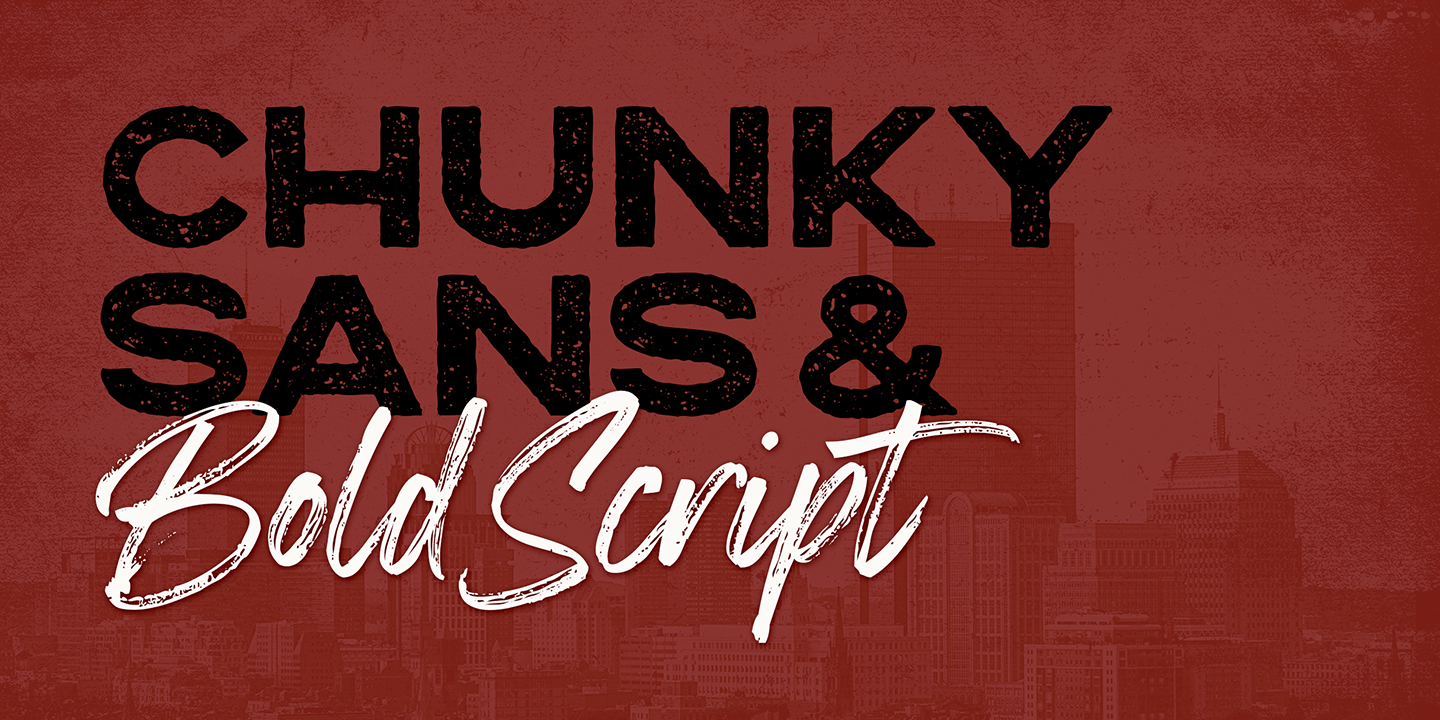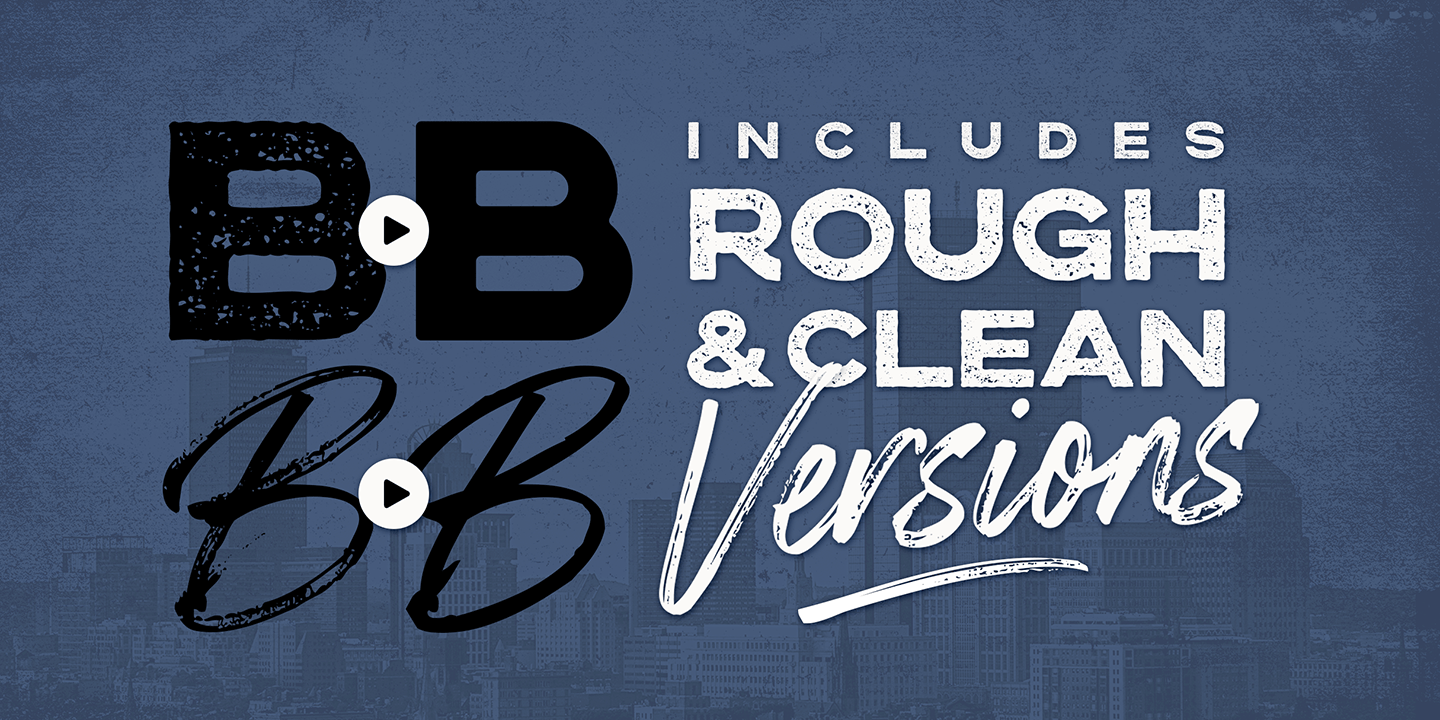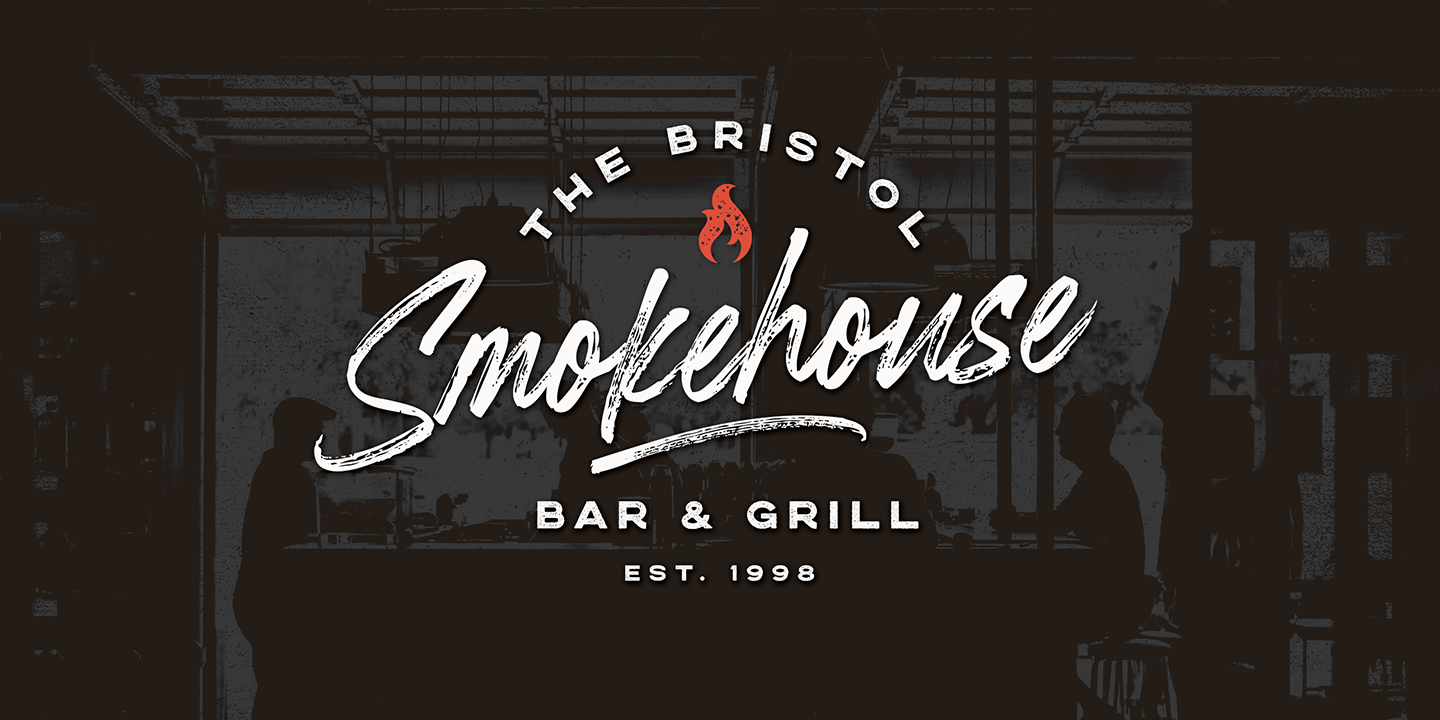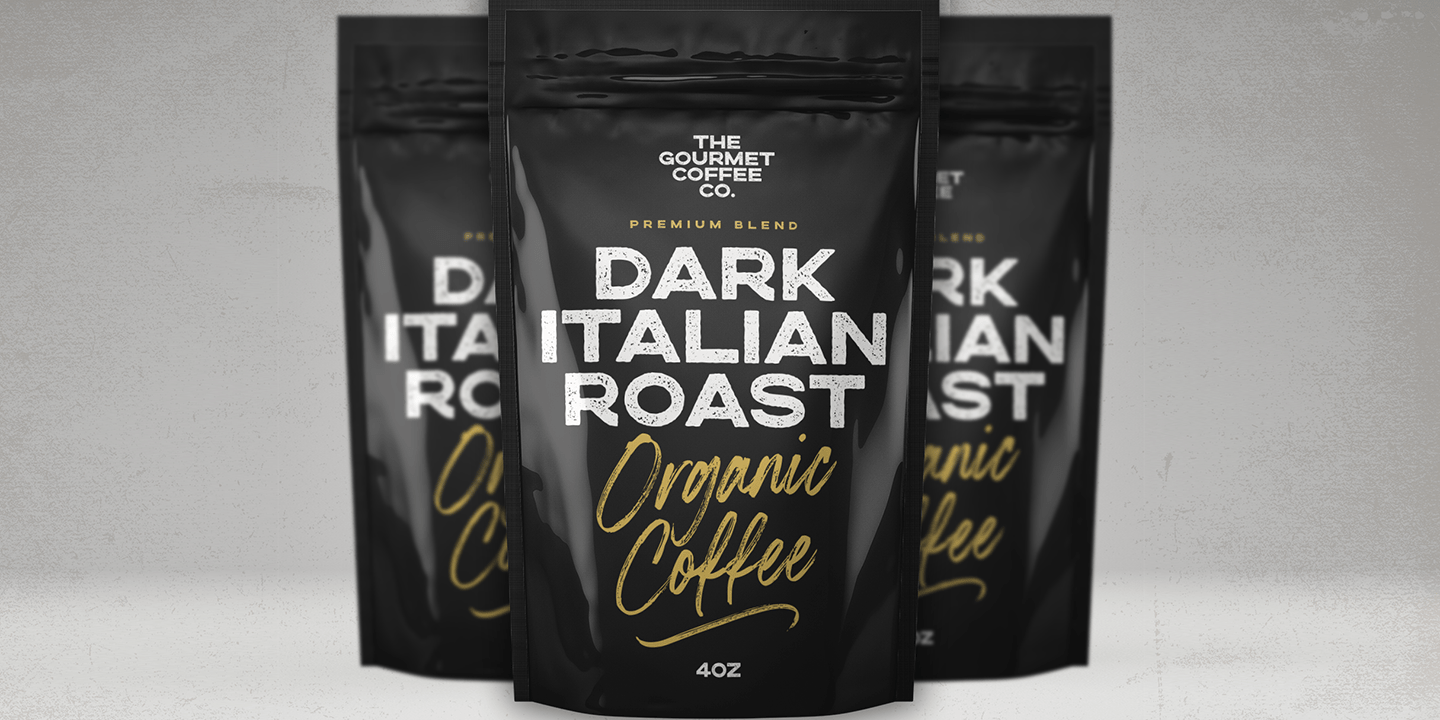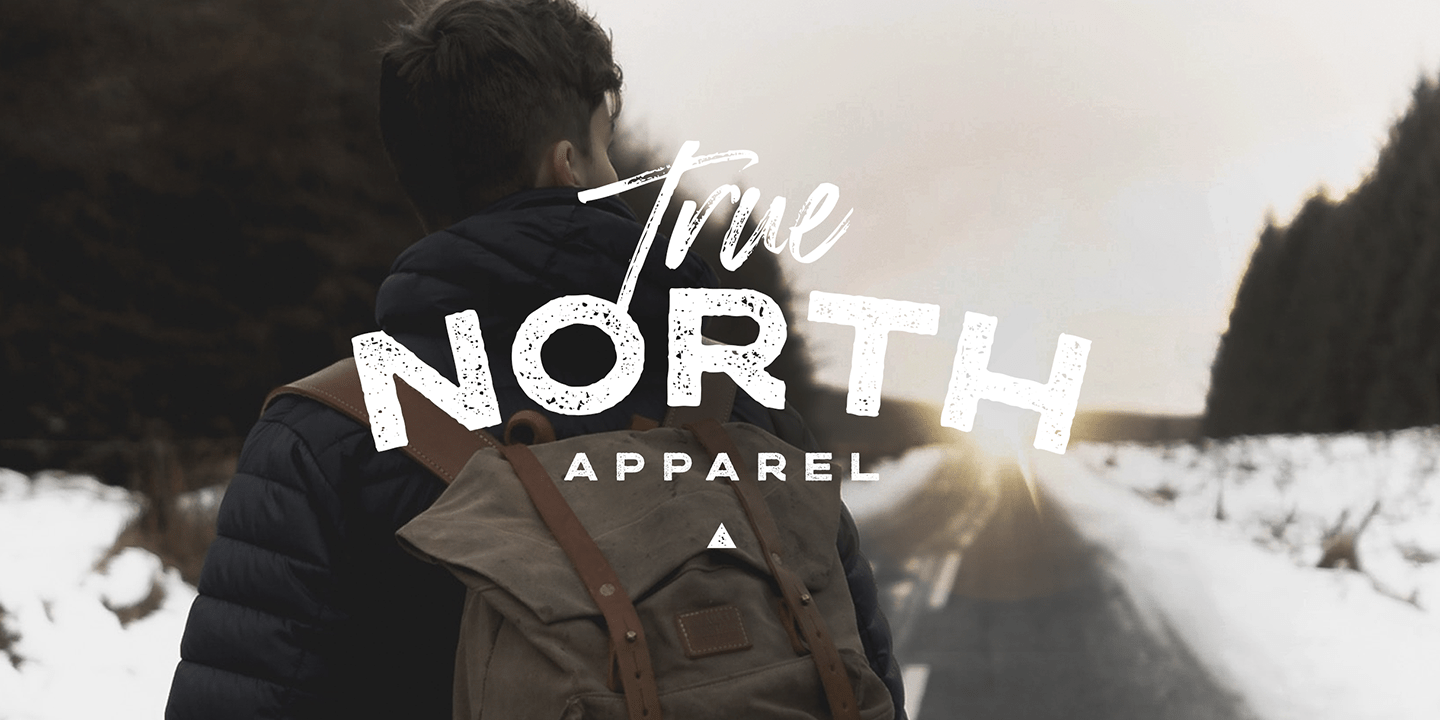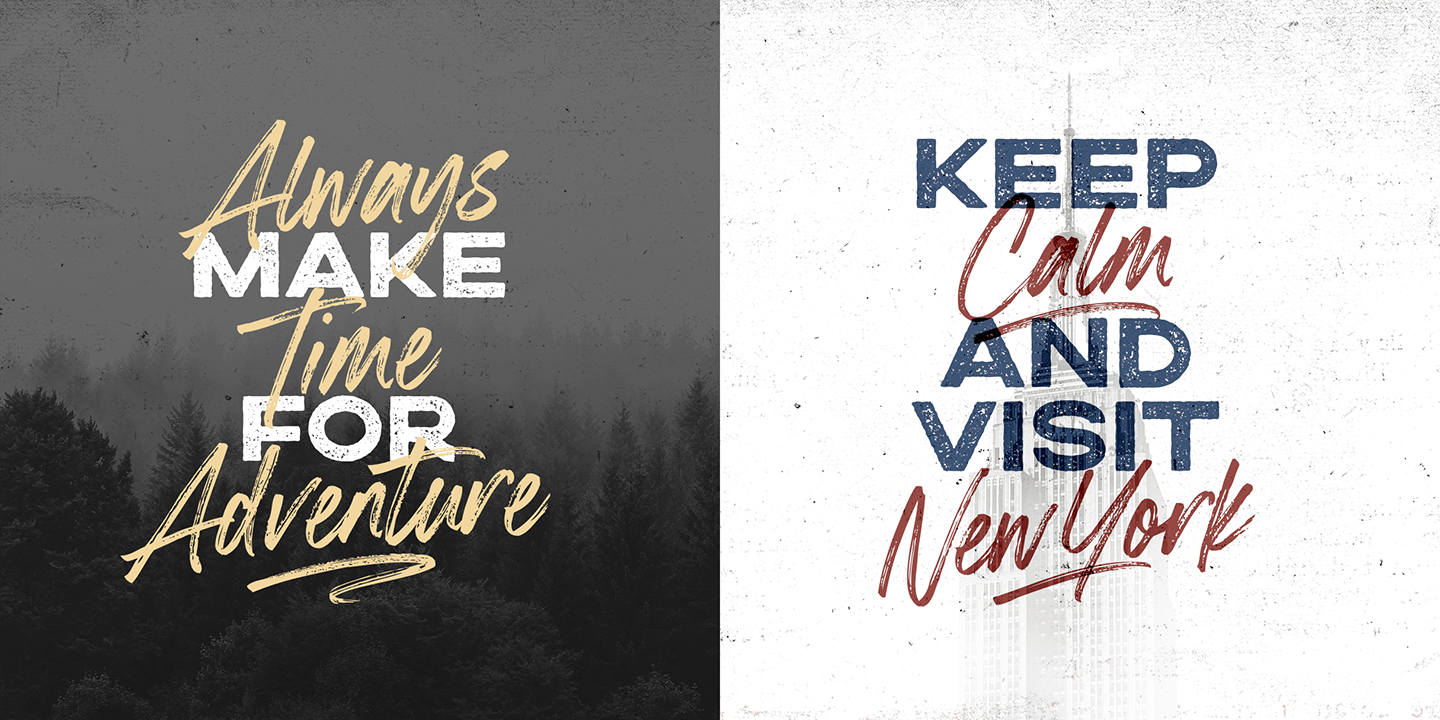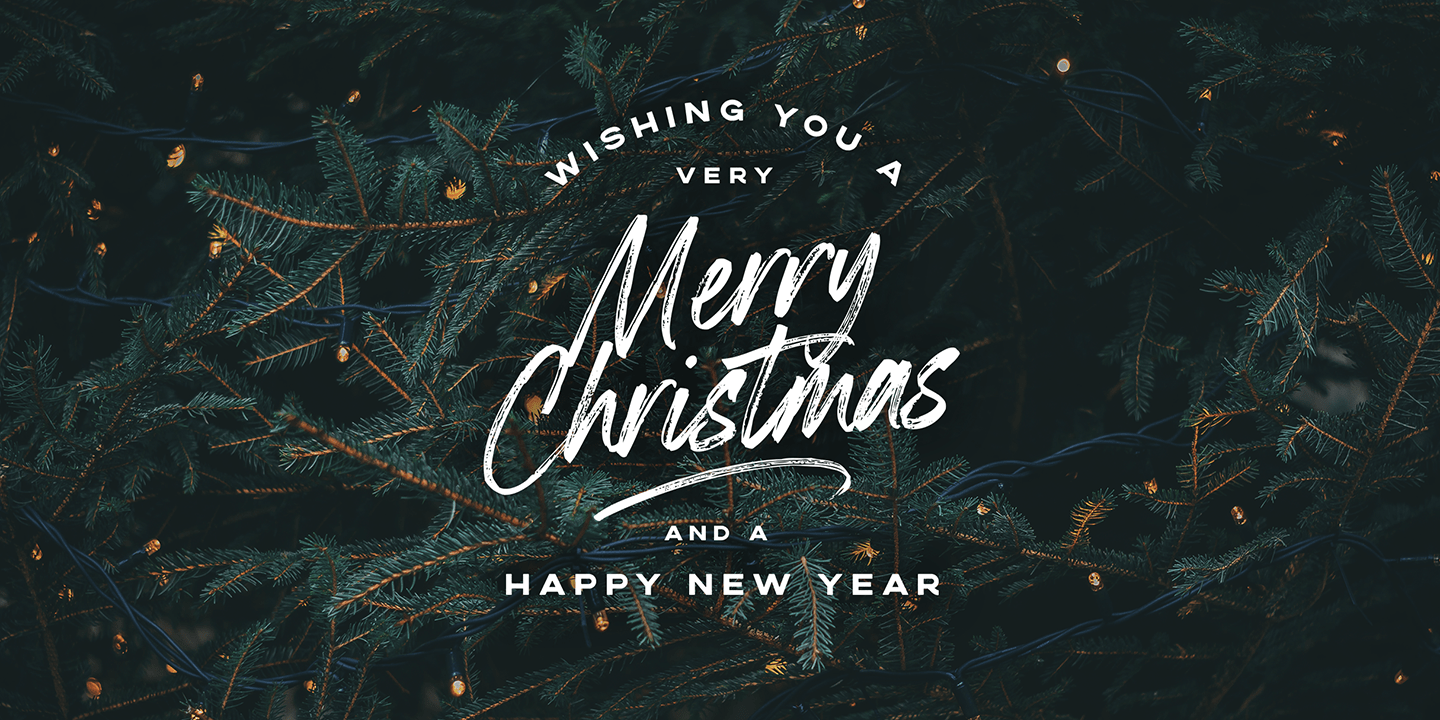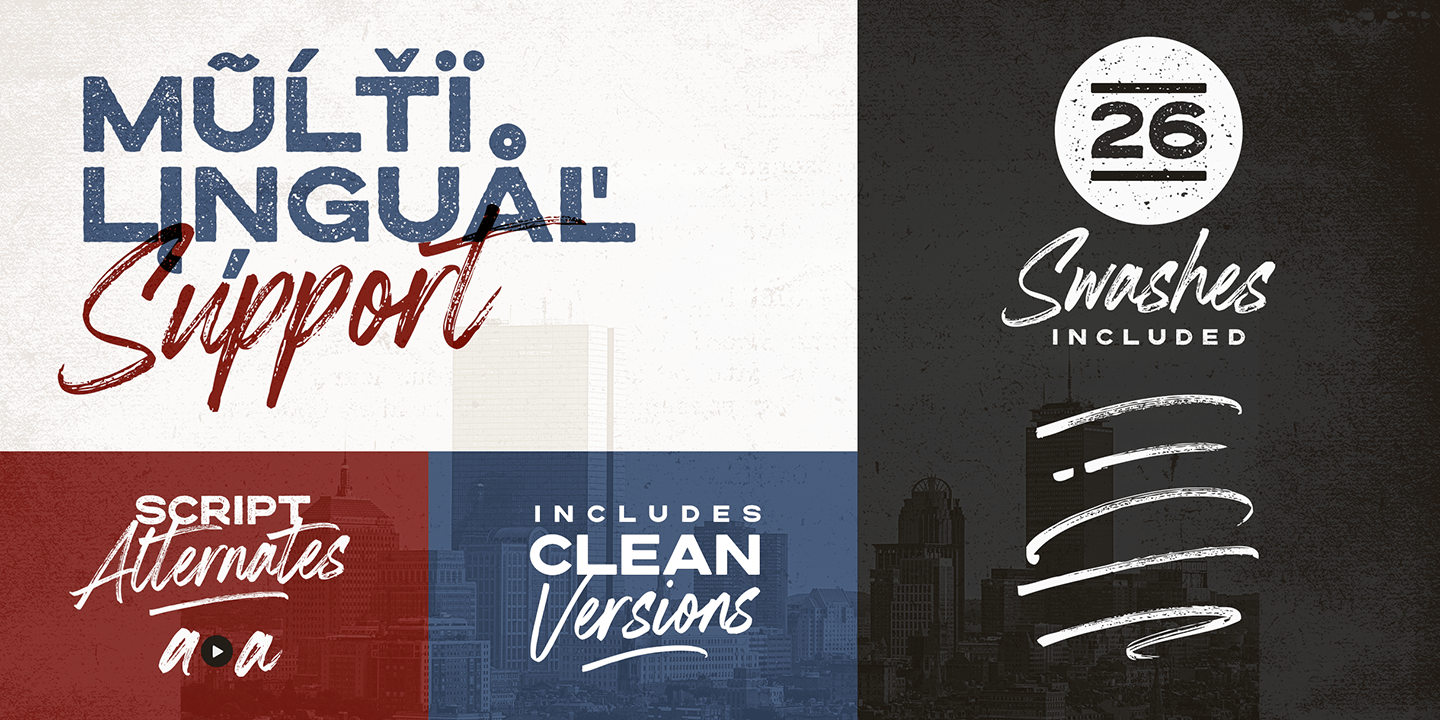
Boston Skyline
Boston Skyline Is a carefully hand-crafted duo of premium Sans & Script fonts, designed to create a bold, authentic, and timeless lettering combination. The contrasting yet complimentary strong sans and free-flowing script lend themselves perfectly as primary and secondary fonts for logo designs, product packaging, eye catching quotes and display text.
The Boston Skyline family consists of;
Boston Skyline Rough • A hand drawn script font with authentic textures built-in. Contains upper & lowercase characters, all punctuation and numerals.
Boston Skyline Rough Alt • This is a second version of Boston Skyline Rough, with a completely new set of upper & lowercase characters. If you wanted to avoid letters looking the same each time to recreate a custom-made style, or try a different word shape, simply switch to this font for an additional layout option.
Boston Skyline Sans Rough • A bold Sans font with a built-in rough ‘letterpress’ texture. Contains uppercase characters, all punctuation and numerals.
Boston Skyline Swashes • This font contains 26 swashes, perfect for underlining your script text and adding some extra custom flair. Simply install this font separately and type any a-z character when using this font to generate a swash.
Language Support; All fonts support English, French, Italian, Spanish, Portuguese, German, Swedish, Norwegian, Danish, Dutch, Finnish, Indonesian, Malay, Hungarian, Polish, Turkish, Slovenian